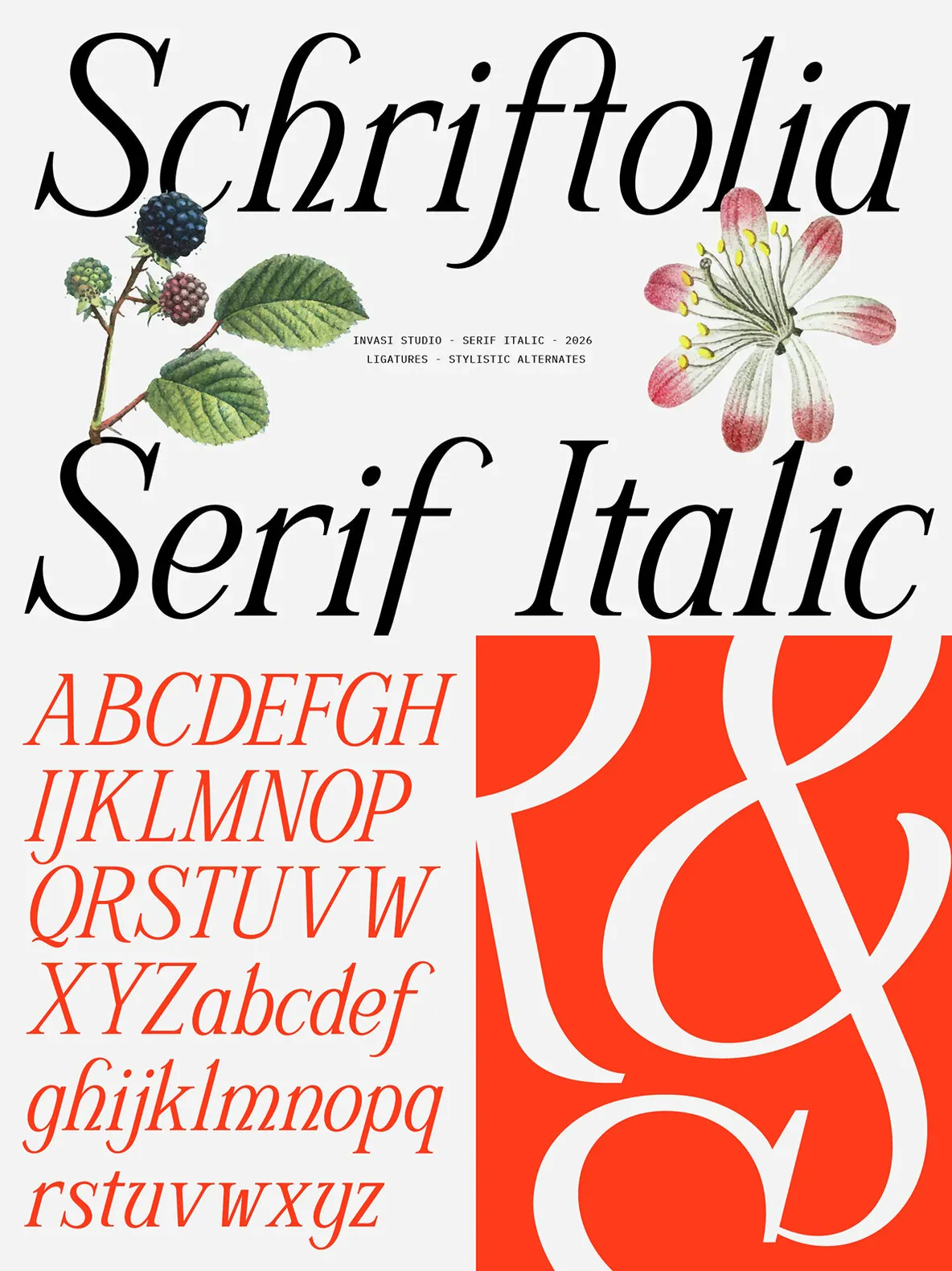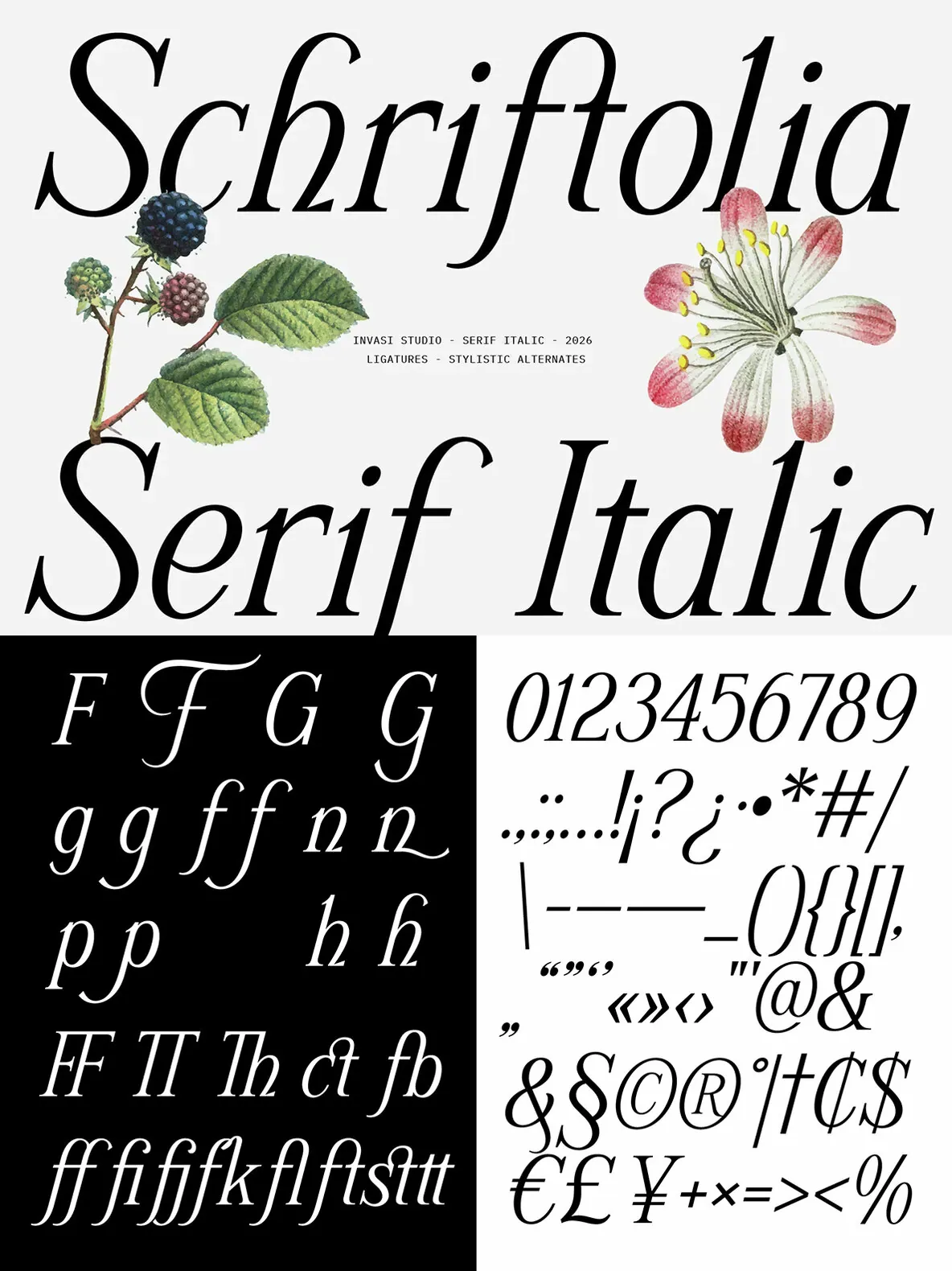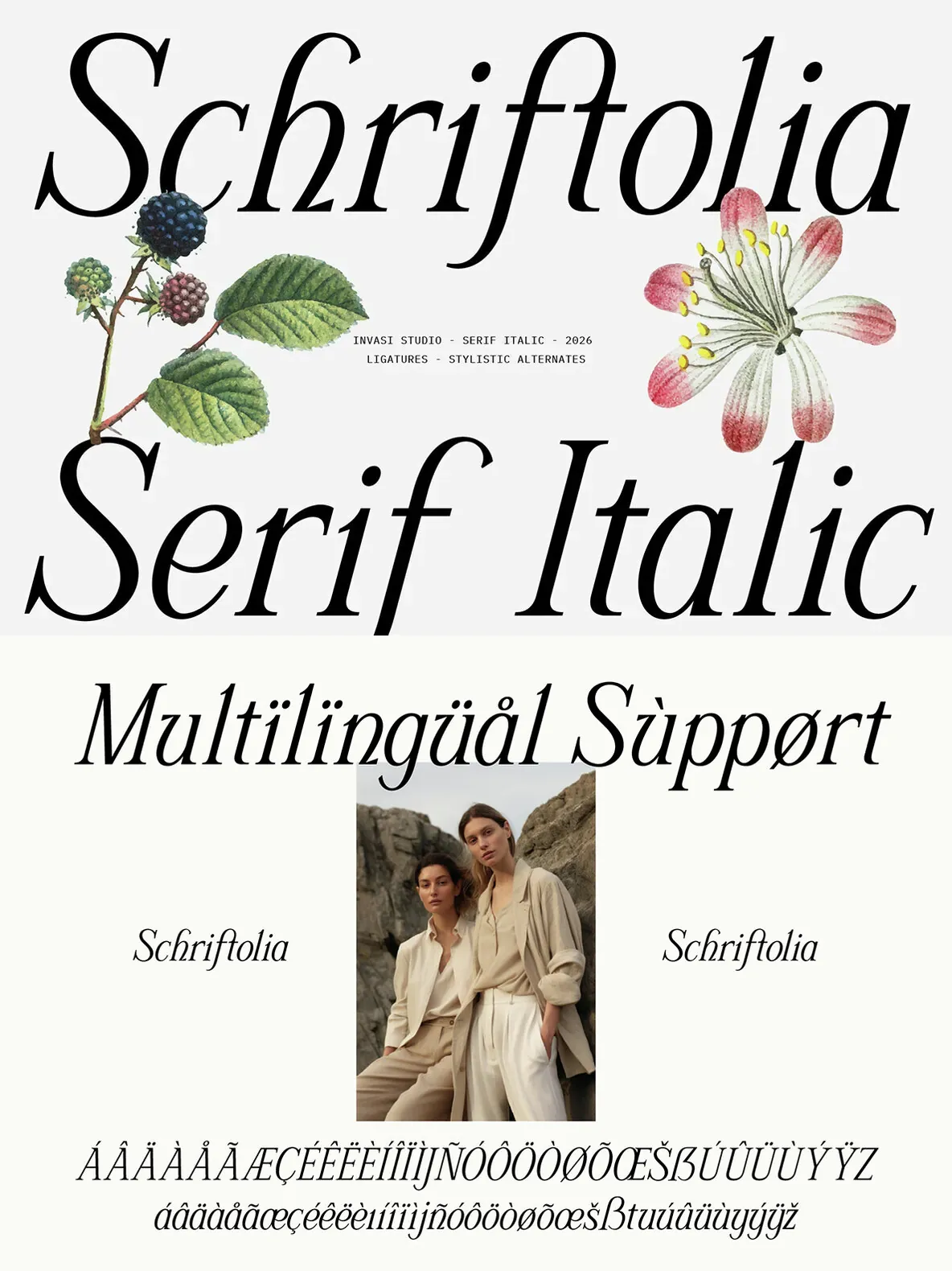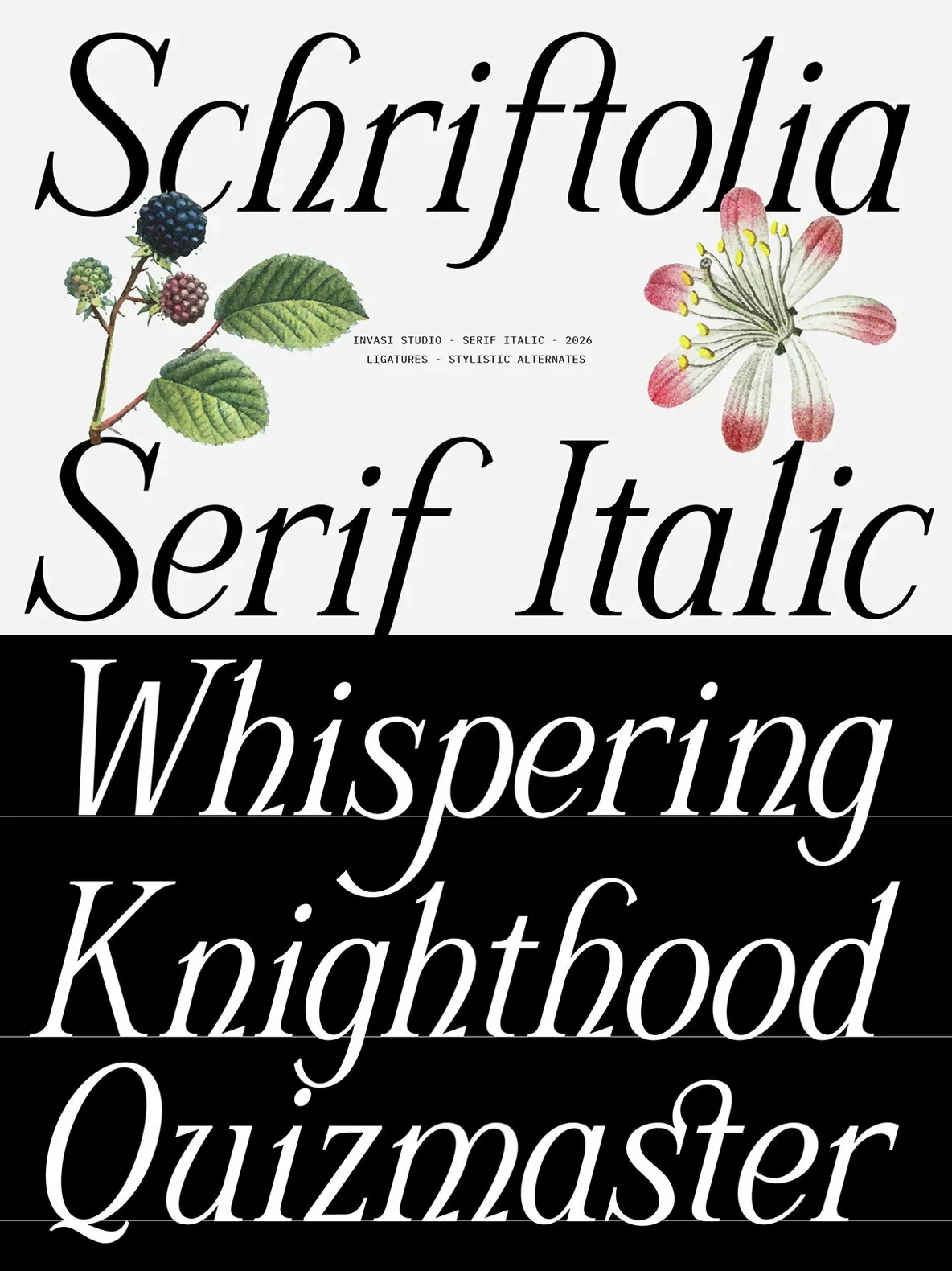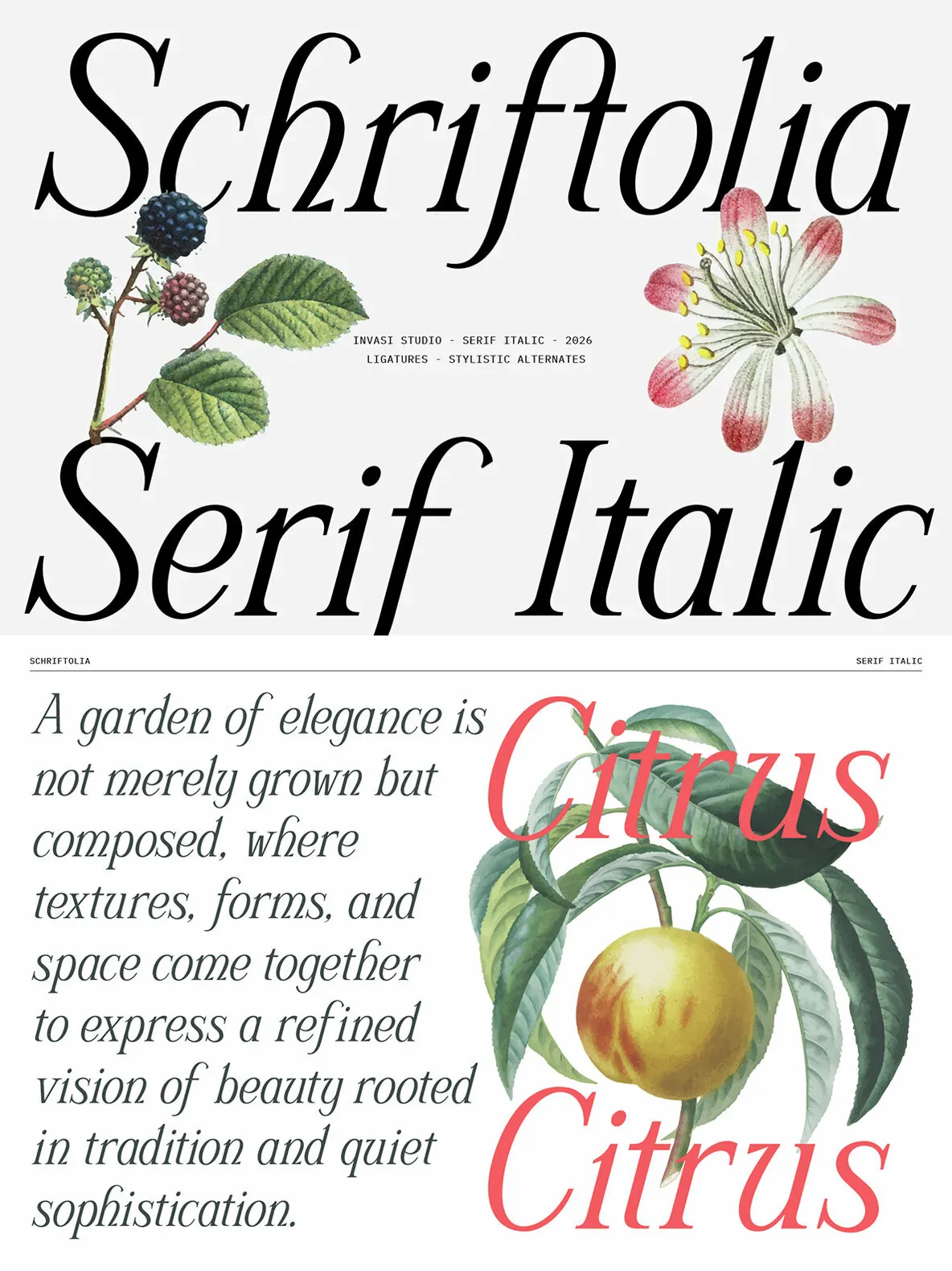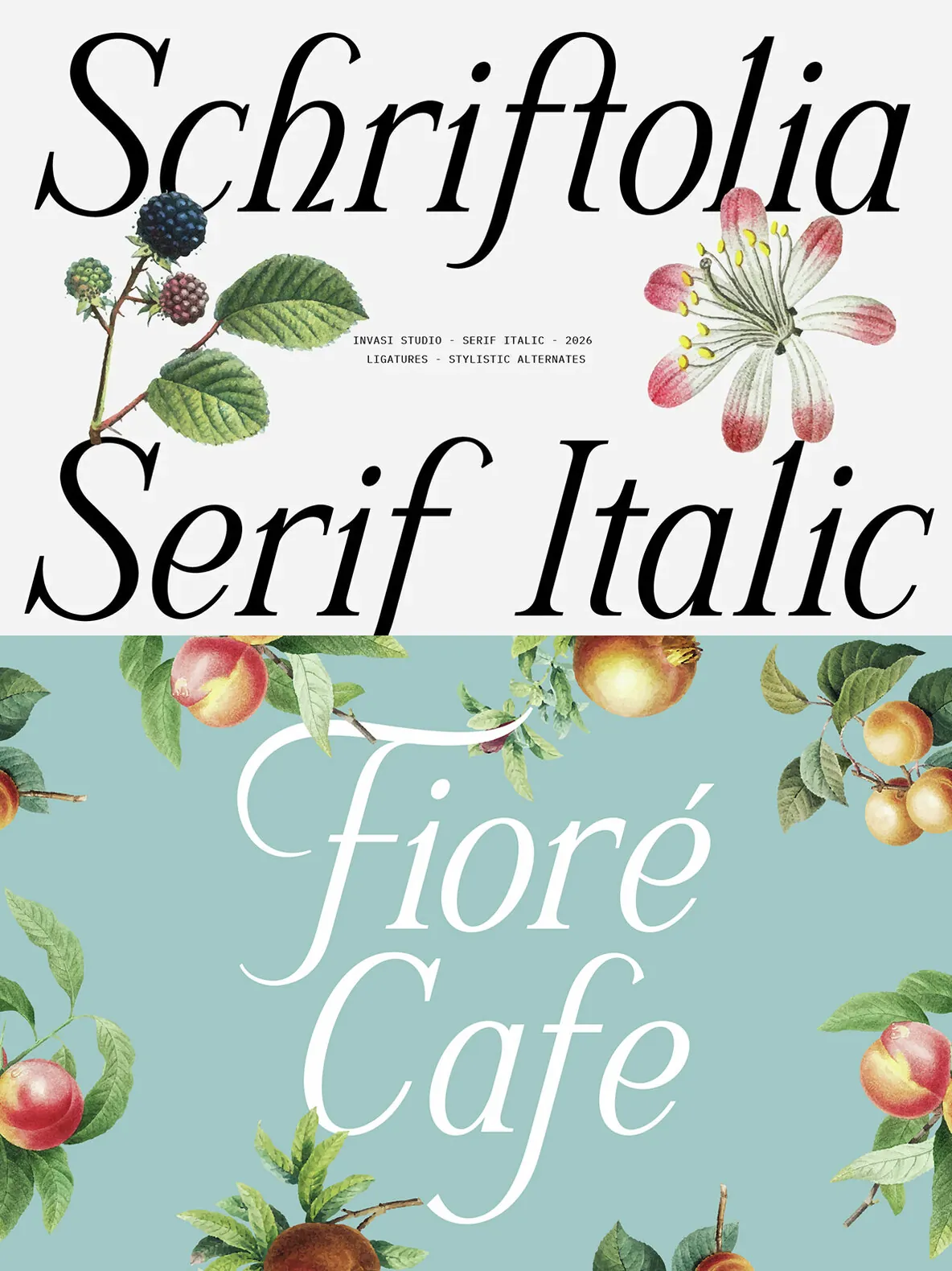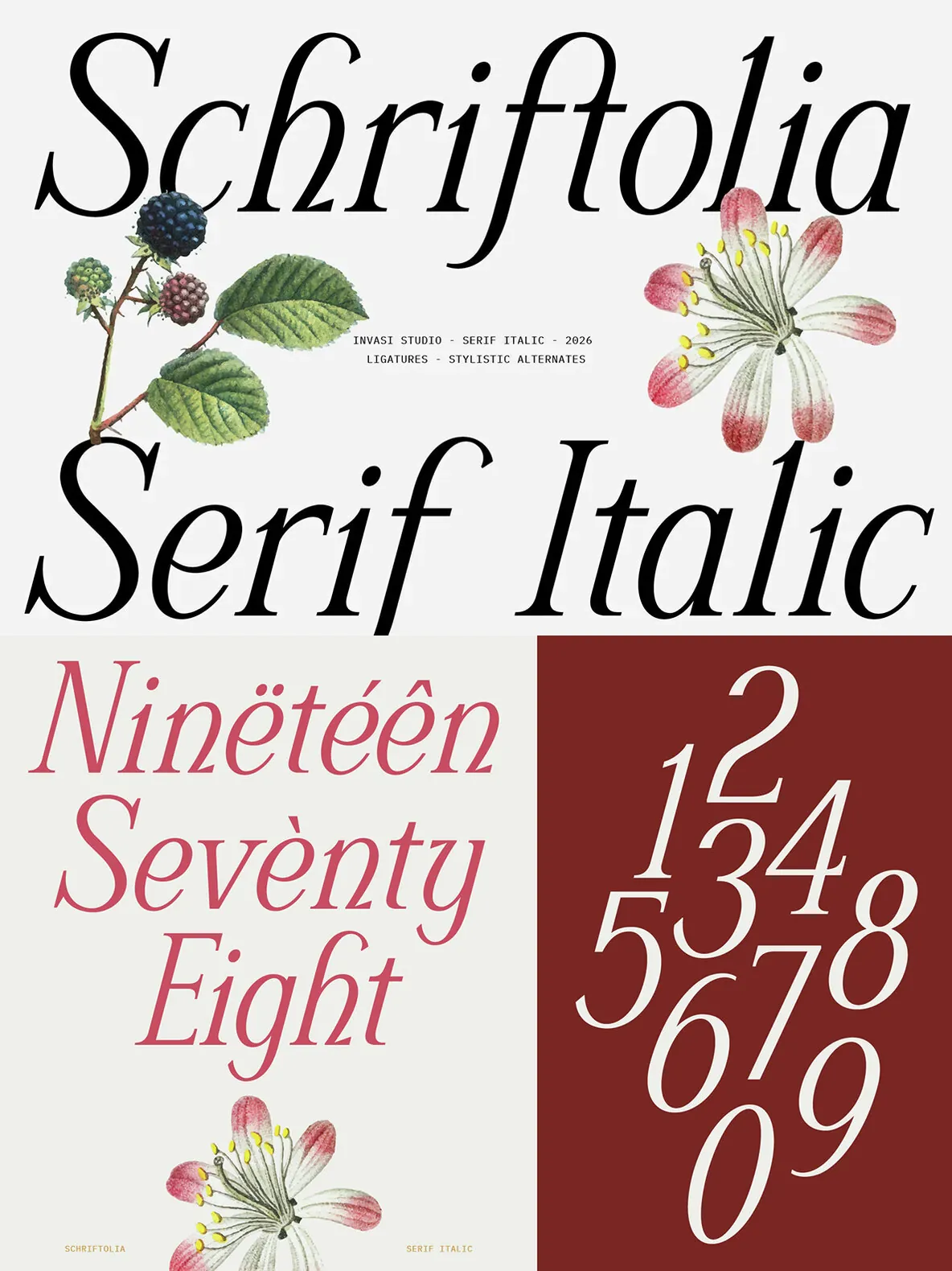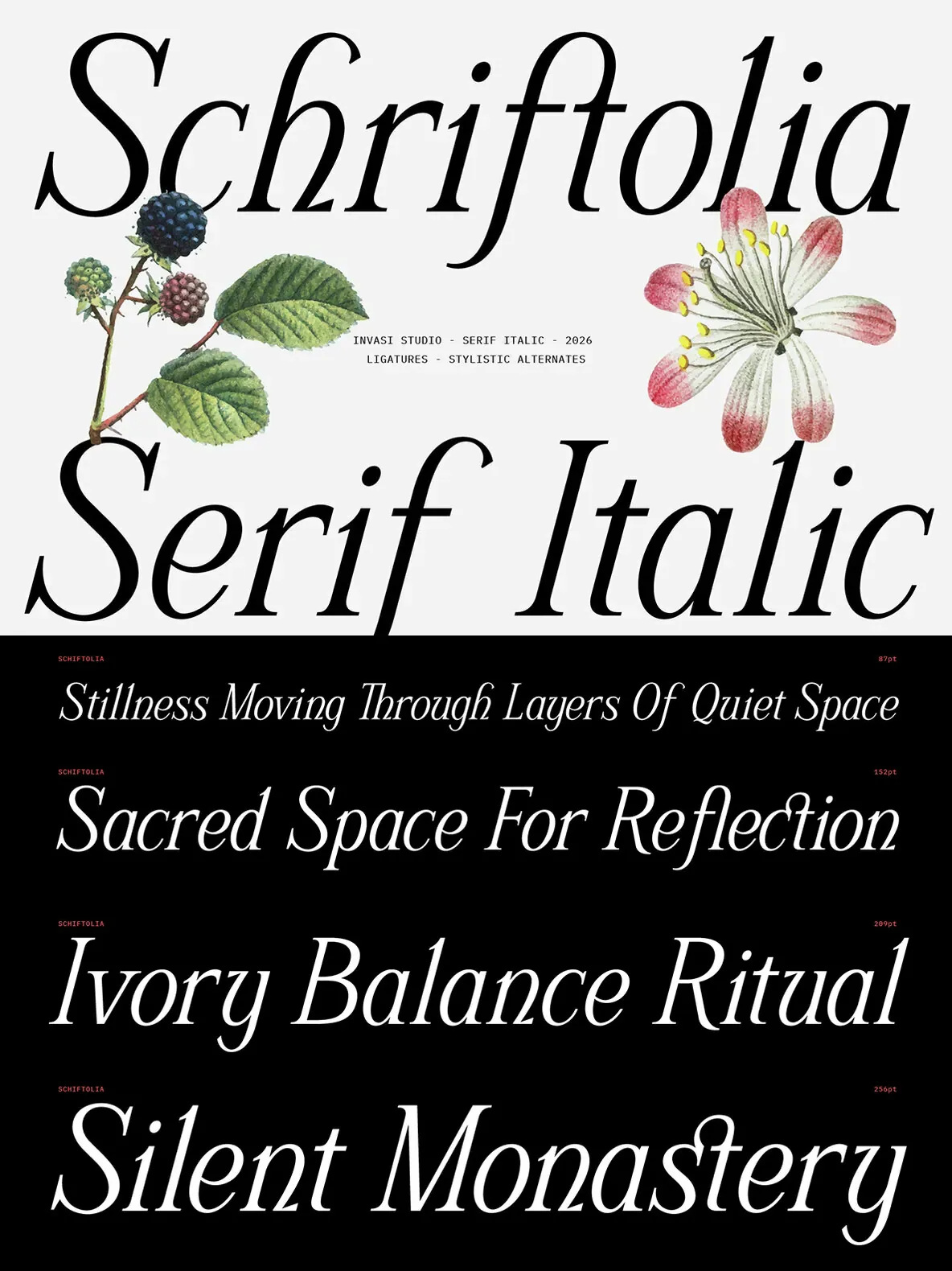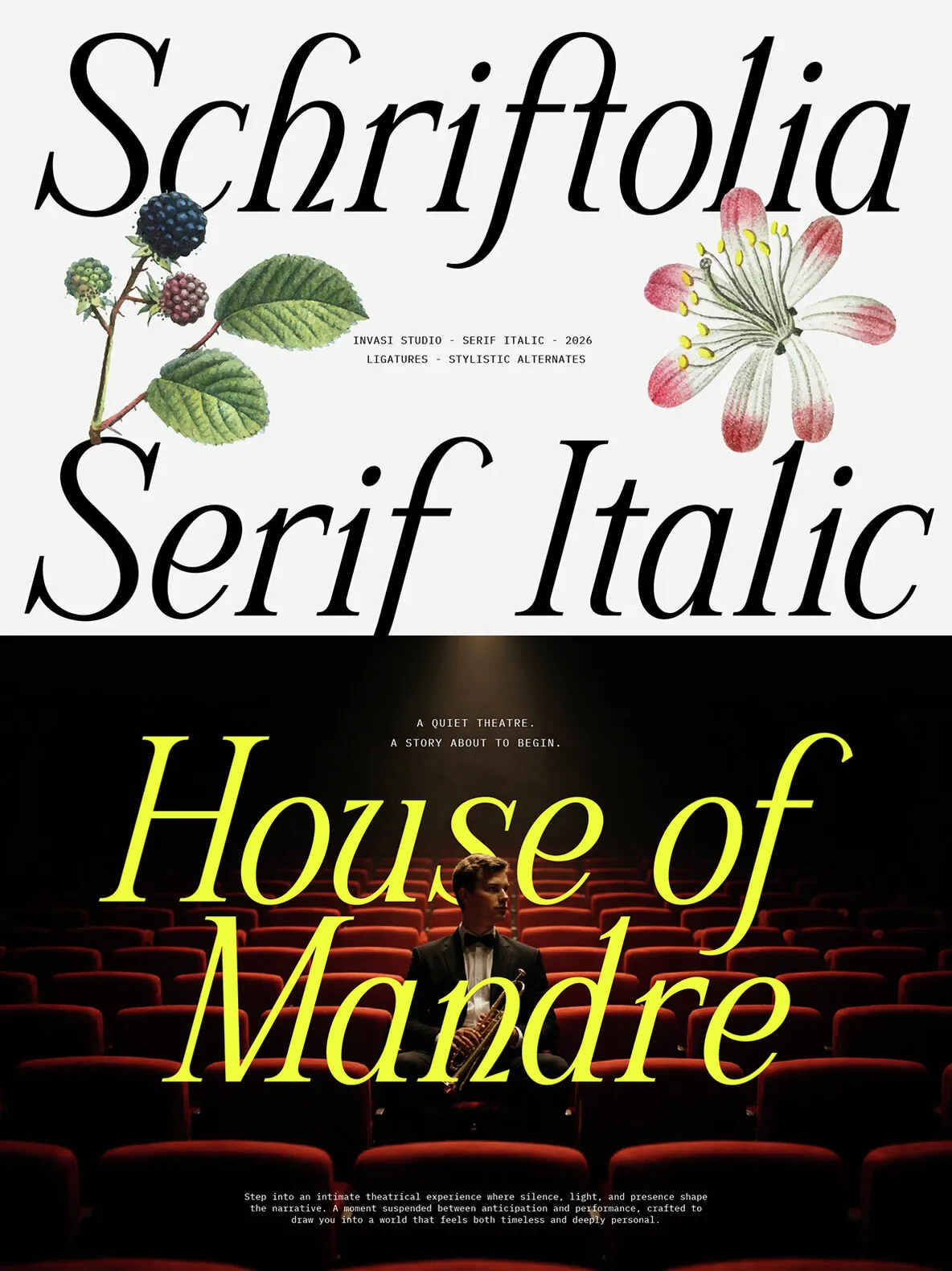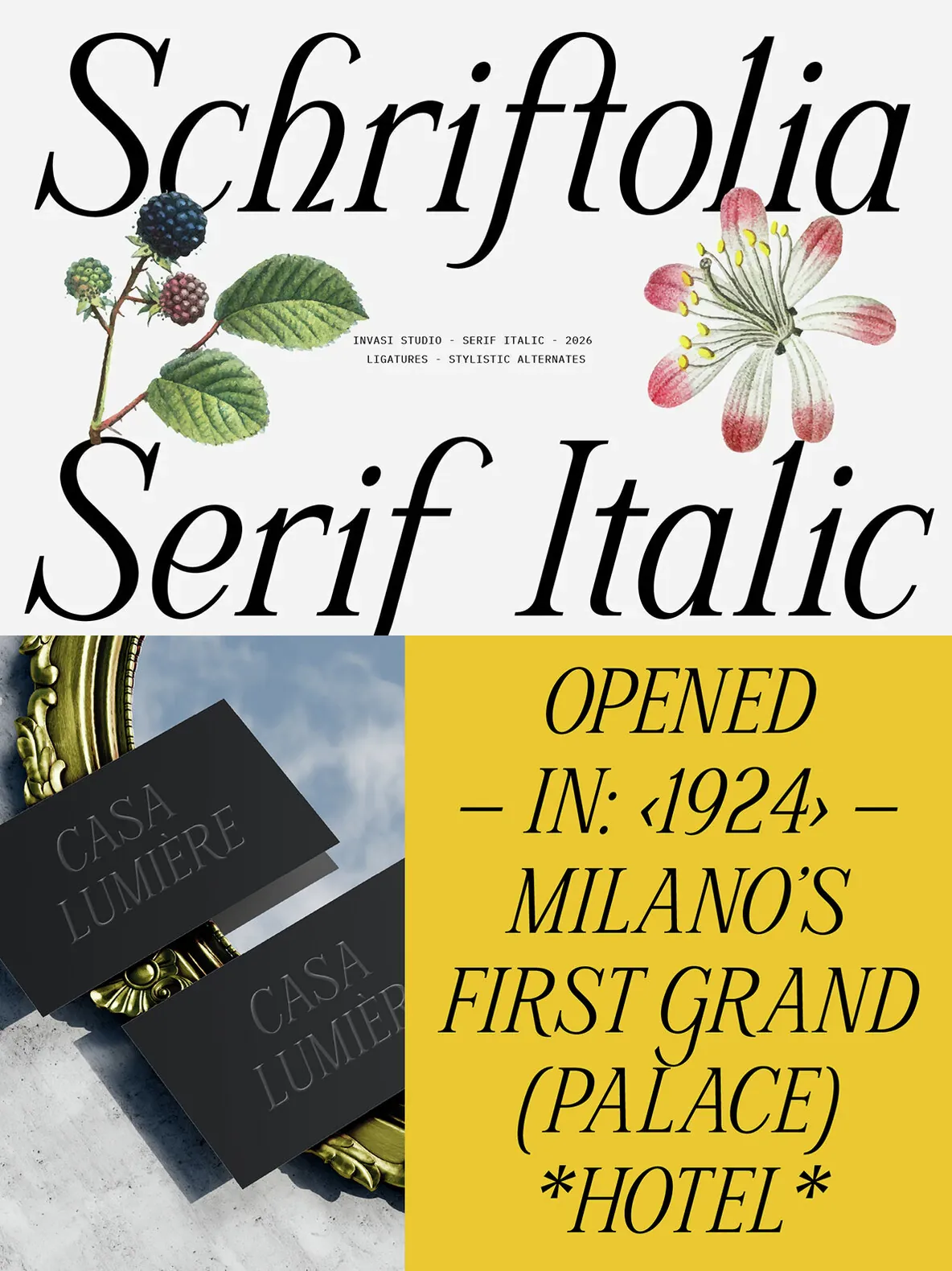
Schriftolia — Quiet Luxury in Italic
The elegance of classical type, with the confidence of a modern voice.
Schriftolia is a serif italic typeface built on classical proportions—refined, deliberate, and quietly expressive. Its flowing rhythm and smooth stroke contrast give every headline and logotype a composed, editorial quality that feels both timeless and current.
Unlike decorative scripts that push for attention, Schriftolia holds its ground through restraint. The forms stay clean enough for body display and rich enough for luxury applications—a balance that feels versatile without becoming generic.
Stylistic alternates and swash characters give you expressive control exactly where you need it: a single word in a headline, a brand name in a logo, or a key phrase on packaging. Everything else stays clean.
Well-suited for luxury branding, beauty and skincare, fashion editorials, hospitality identity, wedding stationery, and premium print work. If your design values subtlety over spectacle, Schriftolia belongs in it.
Elegant serif italic construction with high-contrast strokes
Stylistic alternates and expressive swash characters
Smooth transitions — works at display size and headline scale
Extended multilingual support for Latin-based languages
Full character set: uppercase, lowercase, numerals, symbols, punctuation
Schriftolia Serif Italic
Full character set including alternates and swashes